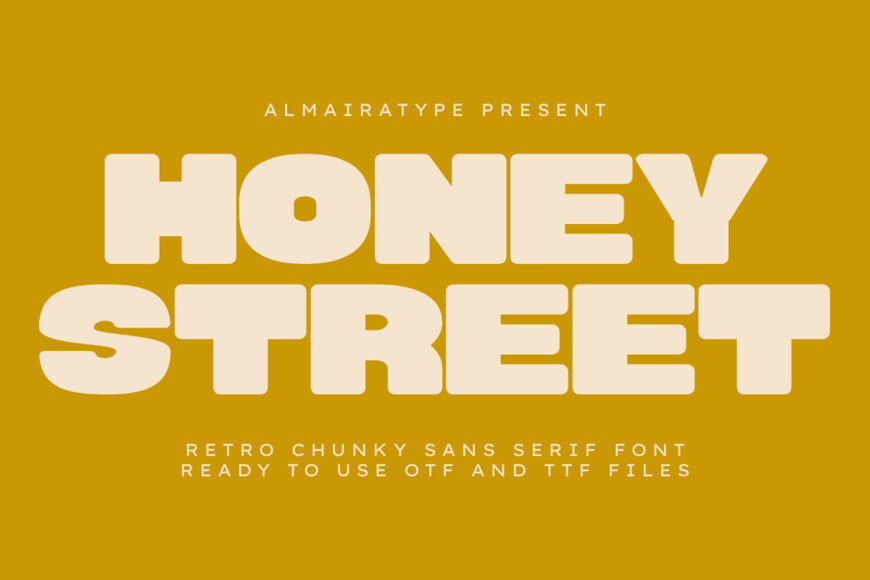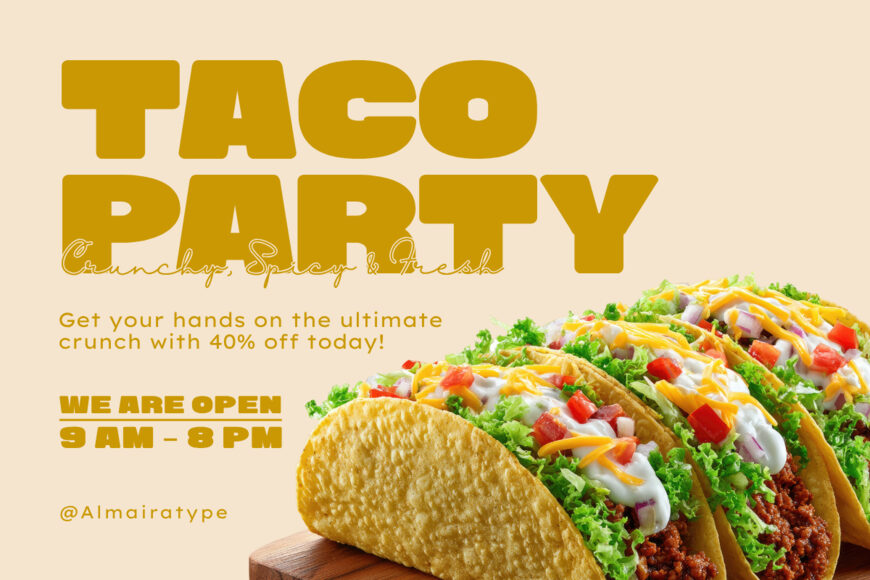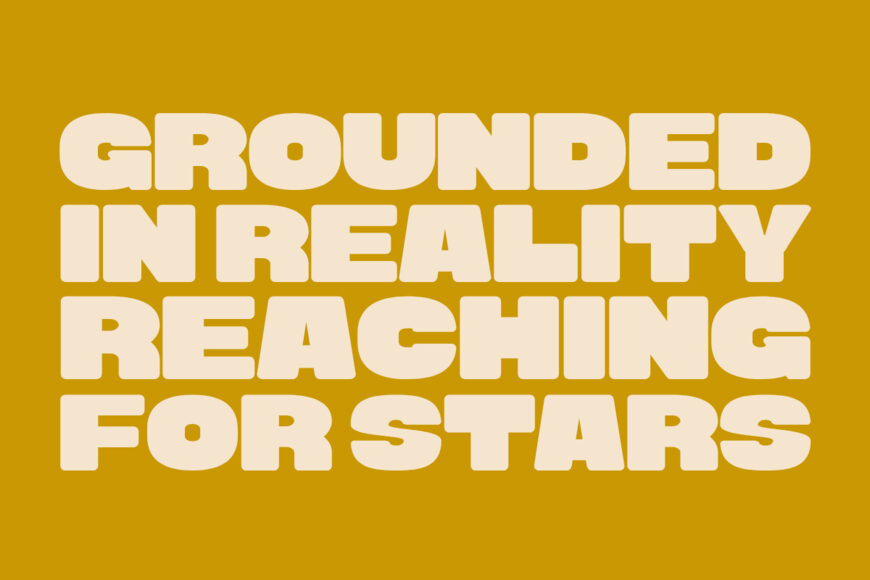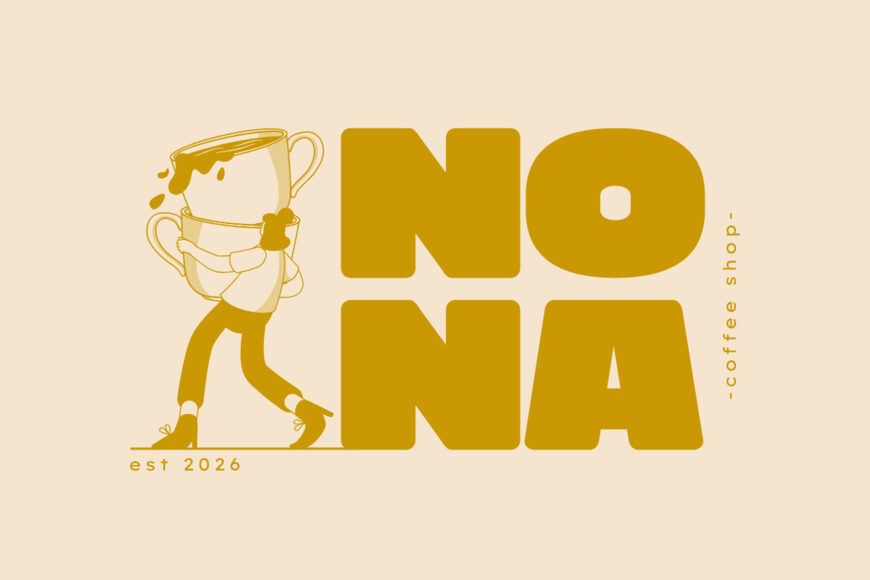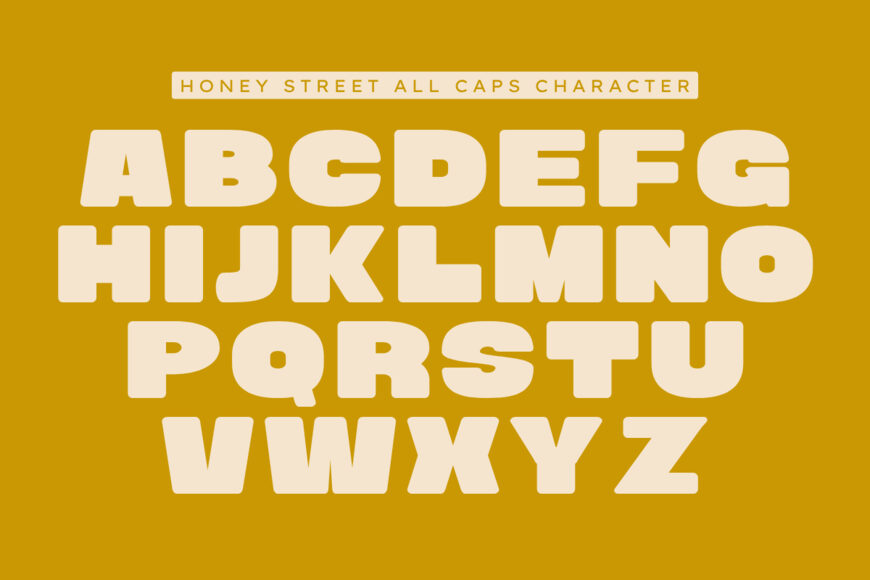
Make a memorable statement with Honey Street, an ultra-bold retro sans serif designed to give headlines a playful, confident edge. Its chunky letterforms, broad foundations, and softly rounded shapes combine nostalgic warmth with a polished modern feel.
Perfect for streetwear, branding, advertising, print-on-demand products, and eye-catching commercial designs, Honey Street offers excellent readability and strong visual impact.